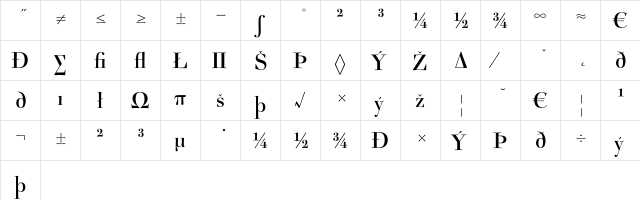
Acanthus RegularExpert
Design Context for Acanthus Typeface
Acanthus is a composed and adaptable typeface that performs quietly and consistently across a wide range of design contexts.
Pro Tip: Pair Acanthus with a font of contrasting weight or personality to build a more expressive typographic hierarchy.